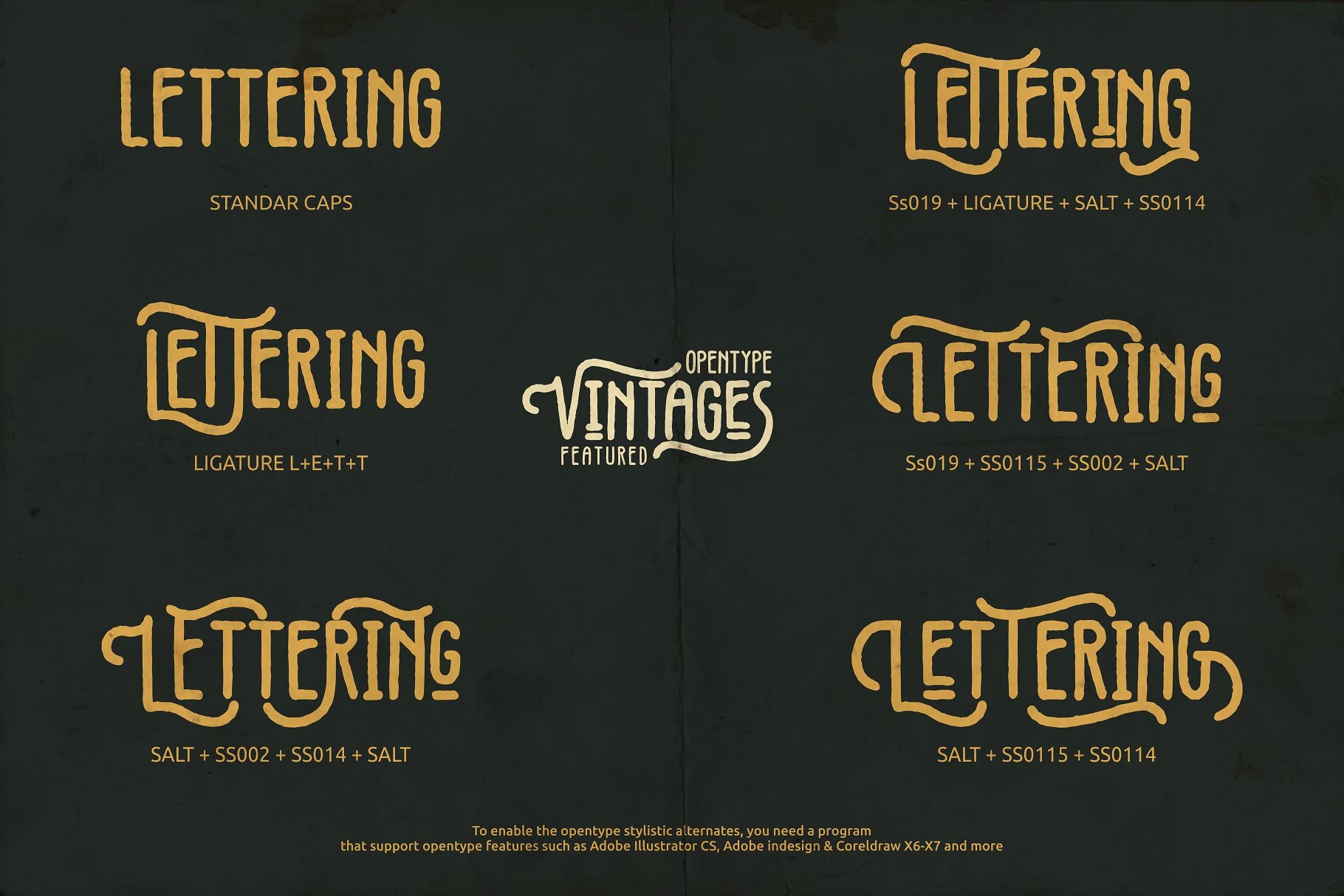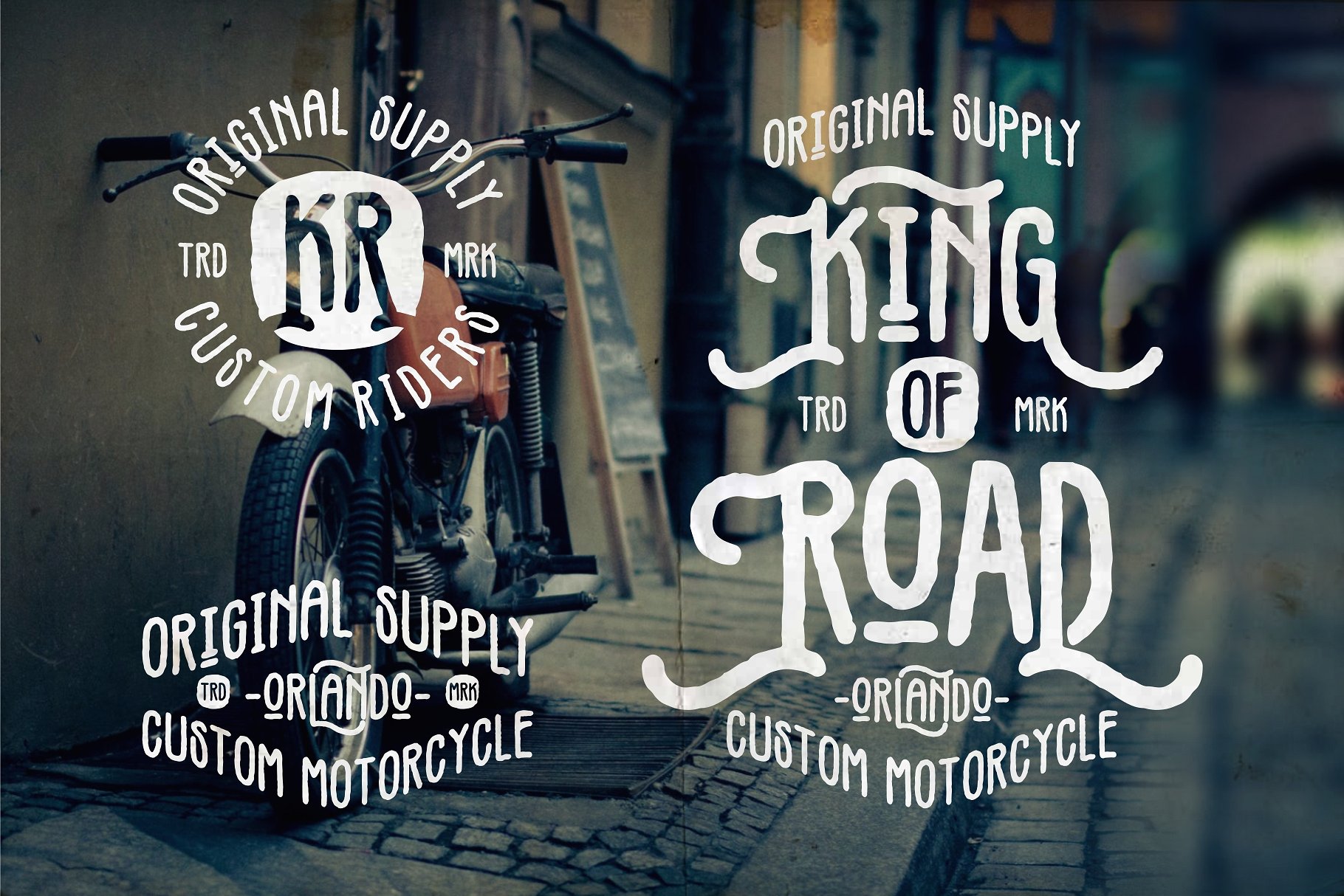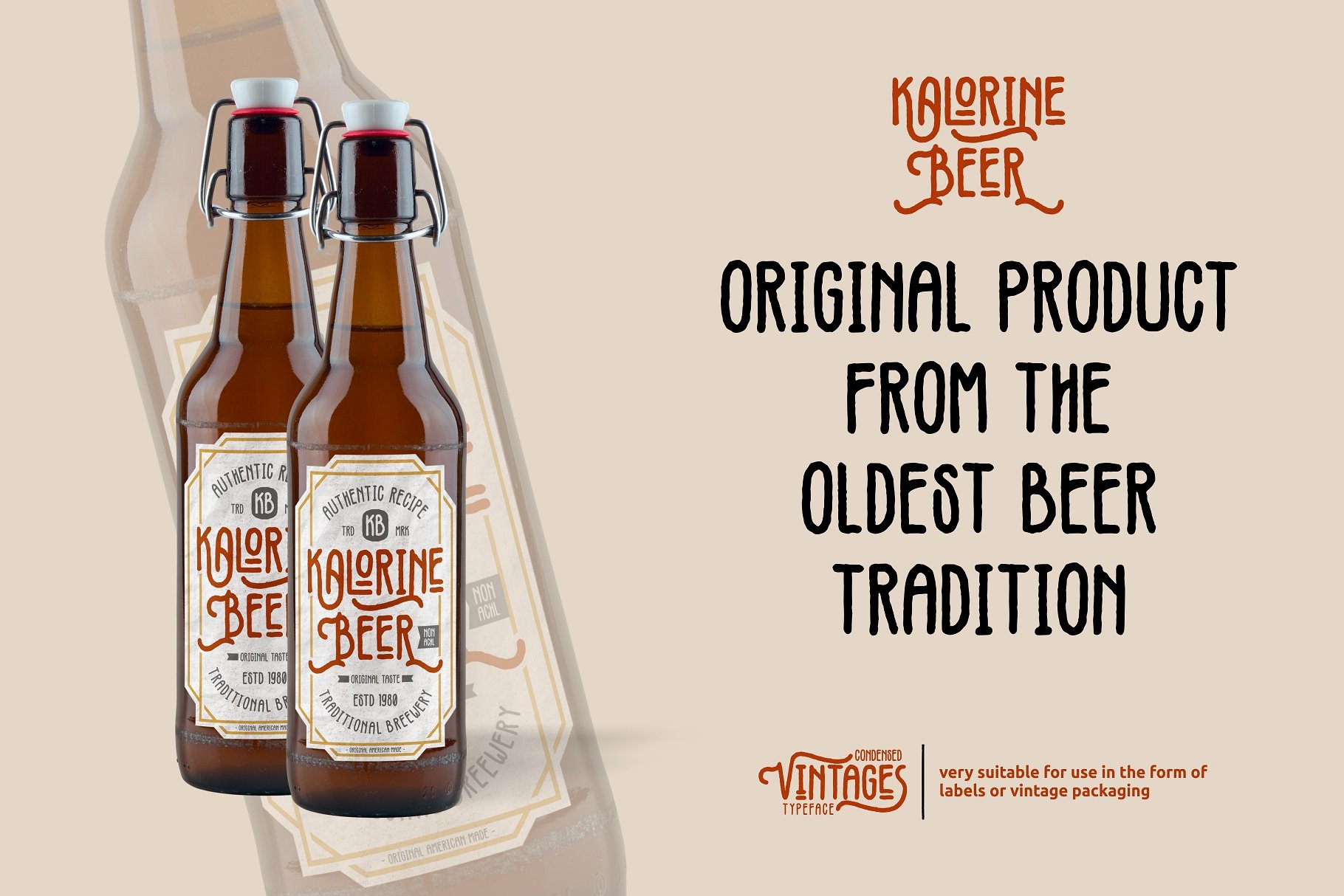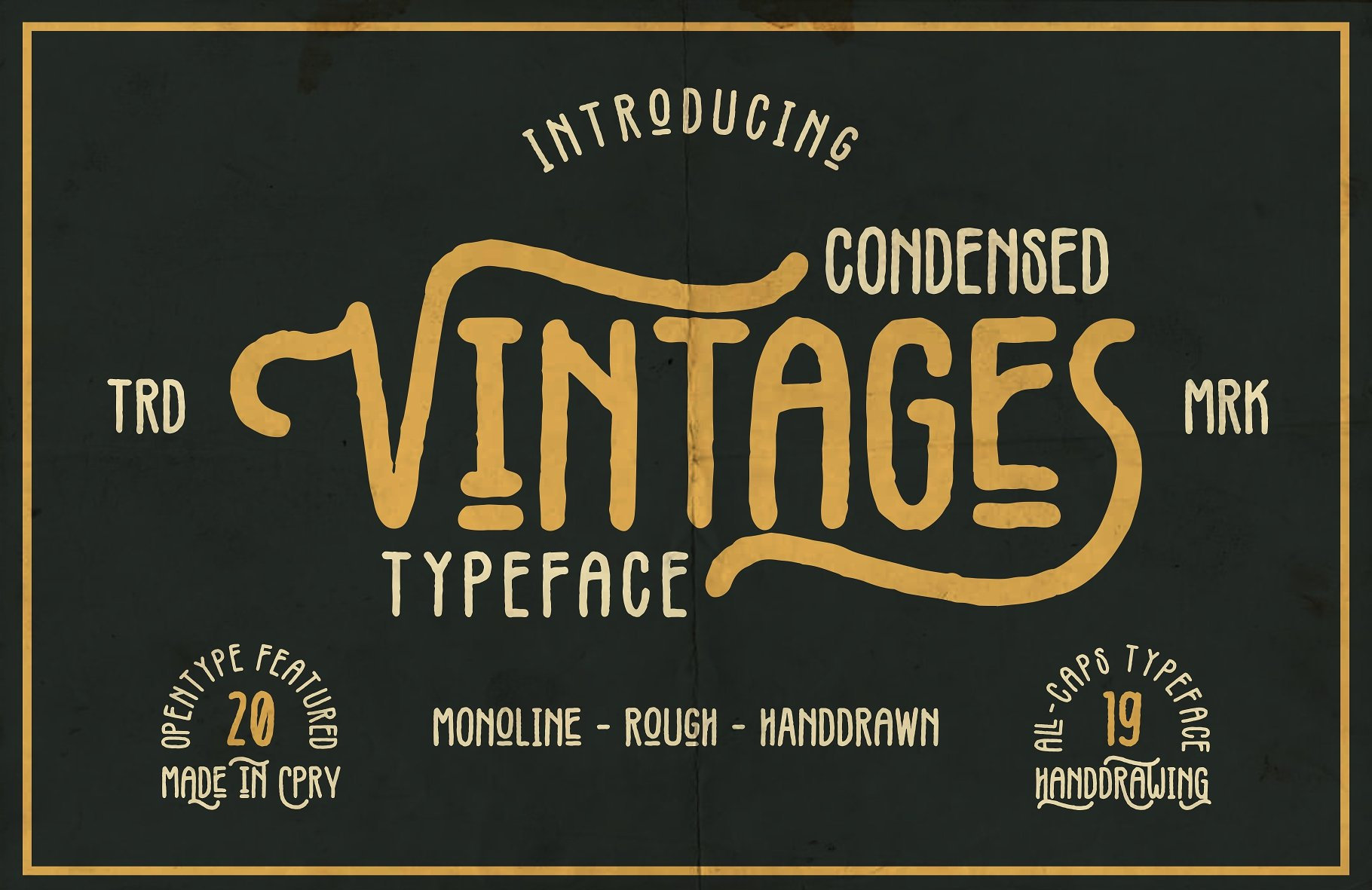
Vintages Typeface
Vintages Typeface – Free Demo
A modern vintage retro font by Garisman Std. Introducing Vintages Font. VINTAGES is handmade modern vintage monoline display typefaces, condensed with all caps characther pairing which is combining the style of classic typography with a modern hand-drawn style. Versatile for many project you needed, like a logo type, handlettering, branding, label, t-shirt design, poster and many more.